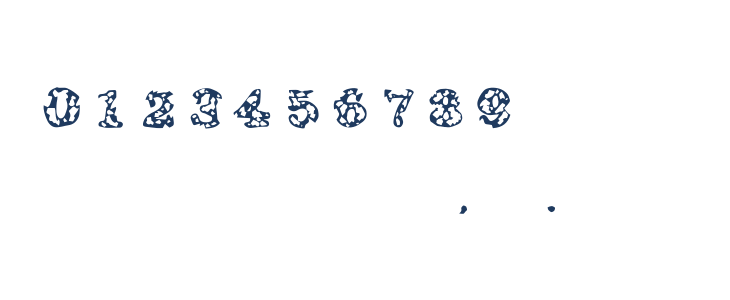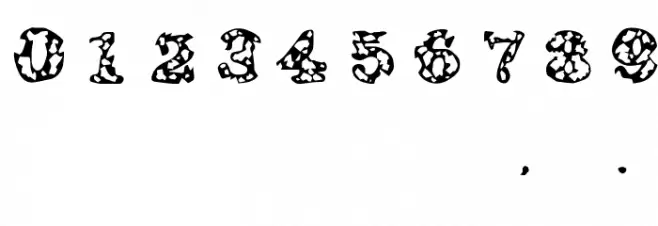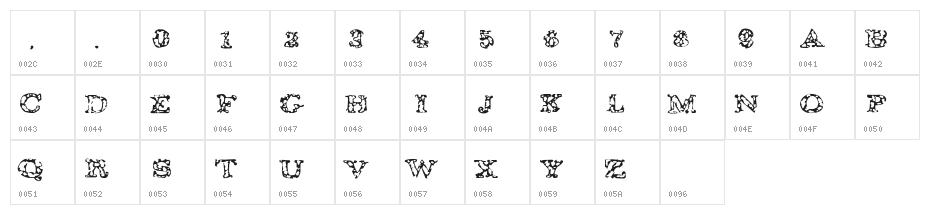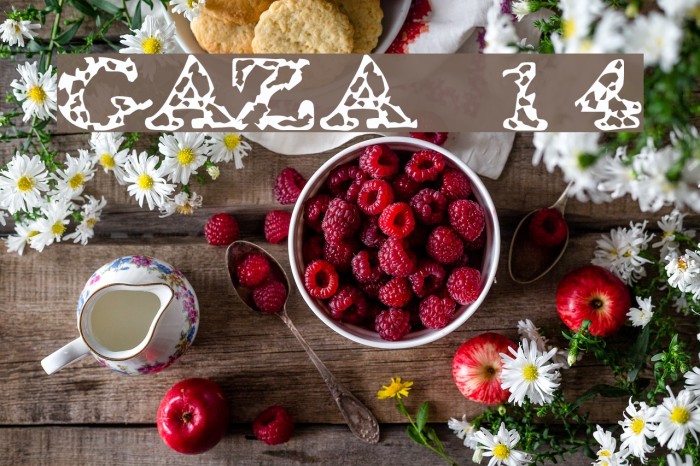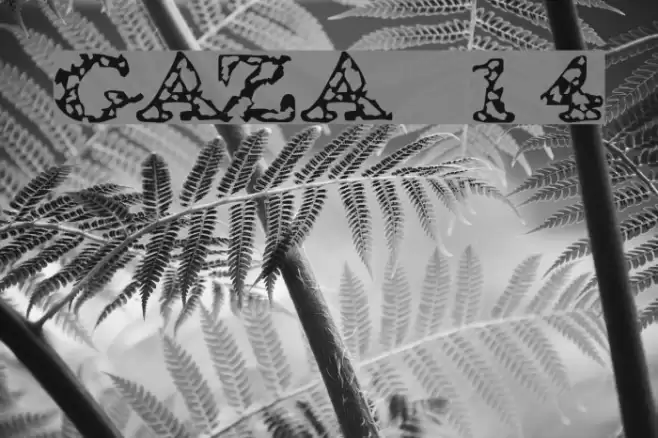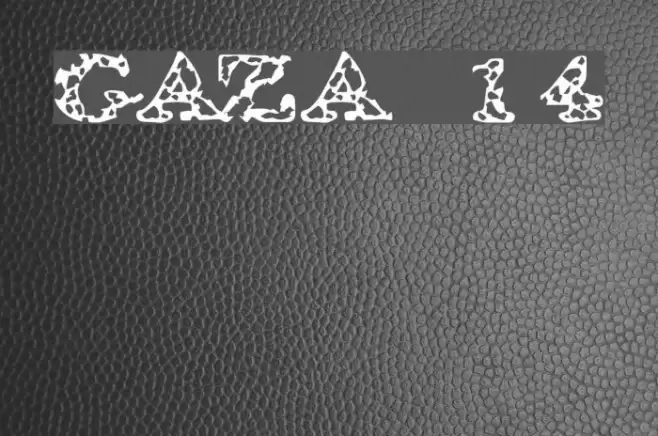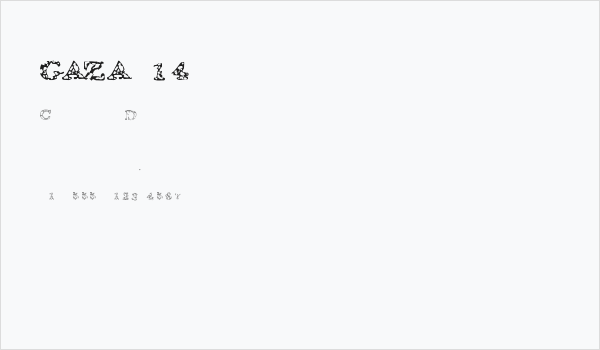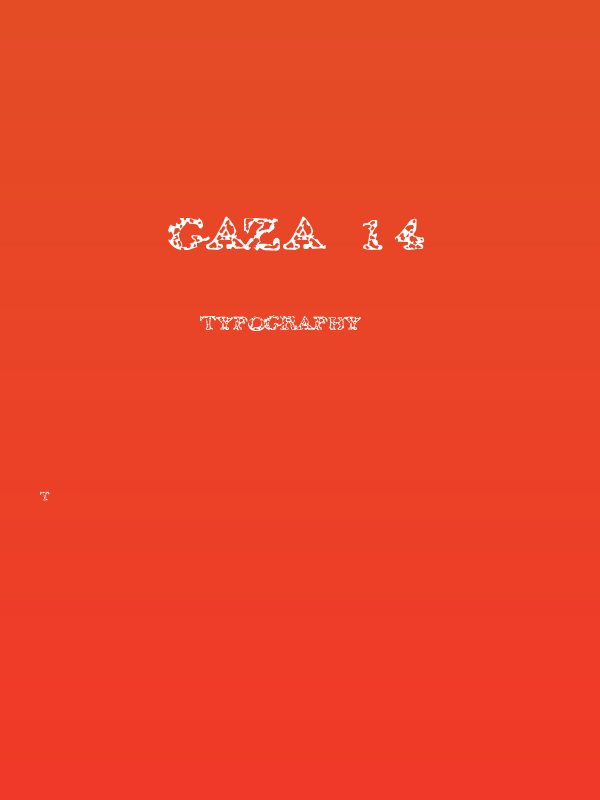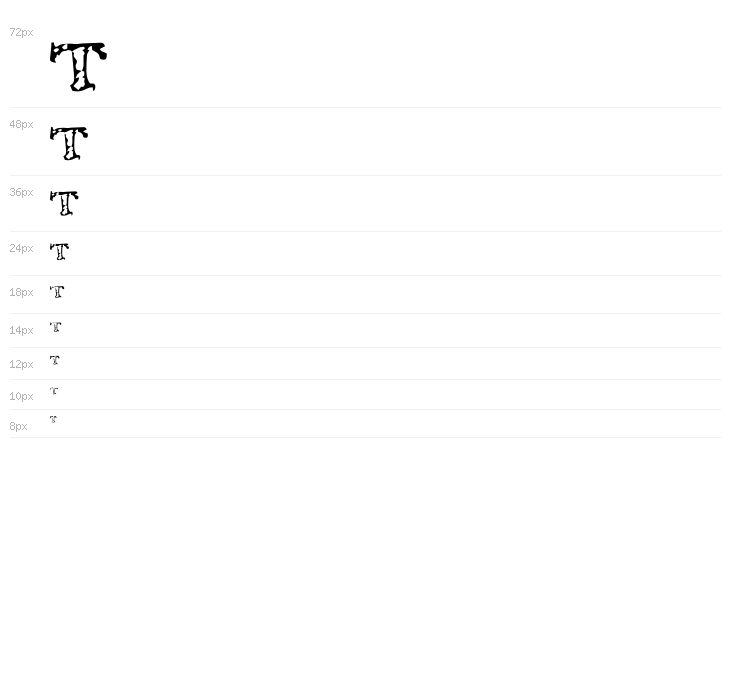
GAZA 14 Font
GAZA 14 Description
This font features a unique and intricate design with a distressed, textured appearance. The characters are bold and have a decorative style, with irregular patterns that create a sense of movement and complexity. The uppercase letters are prominent and eye-catching, while the numbers maintain the same stylistic elements, ensuring consistency across all characters. The font's artistic flair makes it suitable for creative projects that require a standout visual impact.
Proposed ProjectsIdeal for poster designs, album covers, artistic branding, and any project that requires a bold, creative statement.